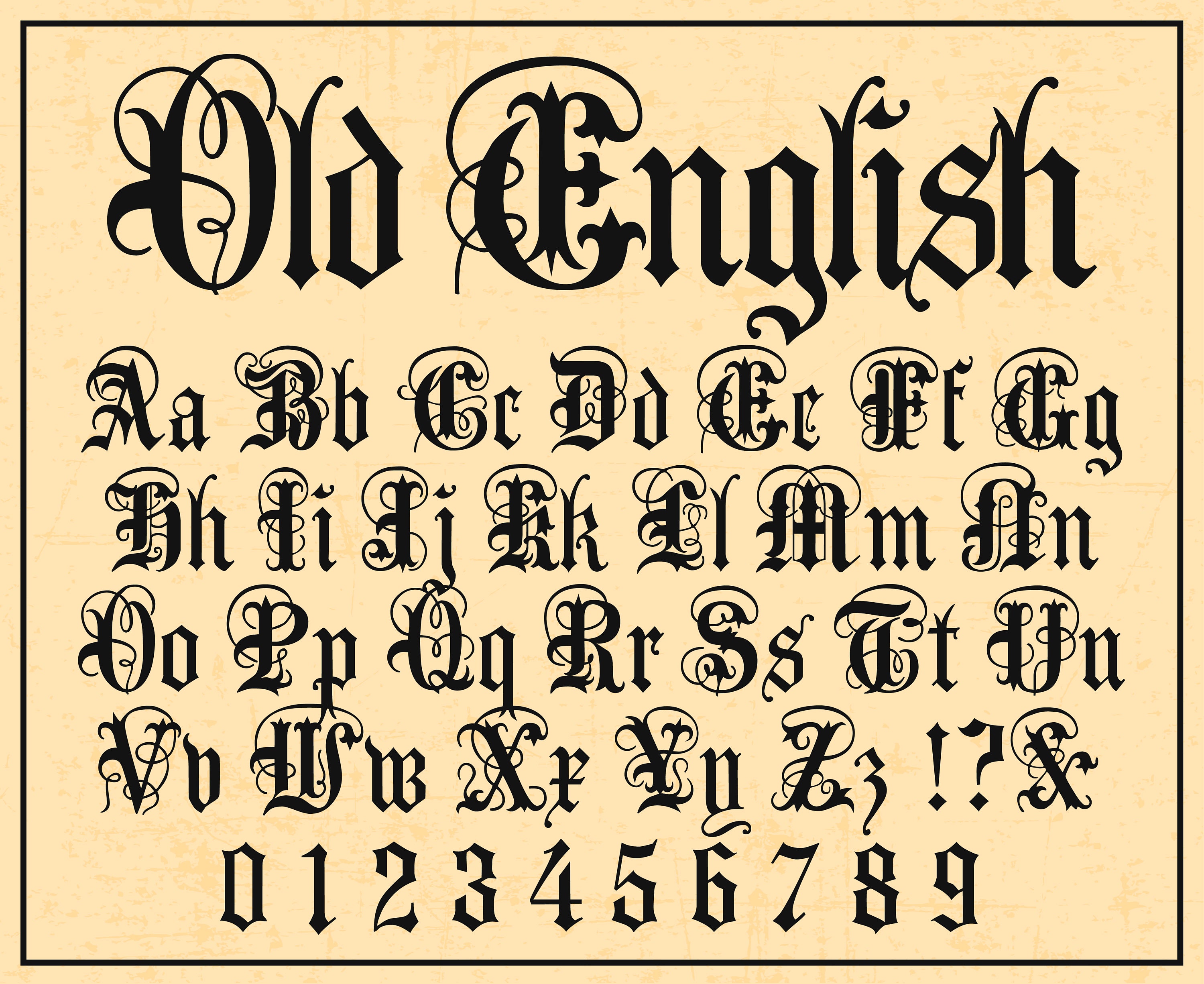
Discover the elegant Old English Font D. Perfect for gothic typography, vintage calligraphy, and creative medieval designs. Download and elevate your project.